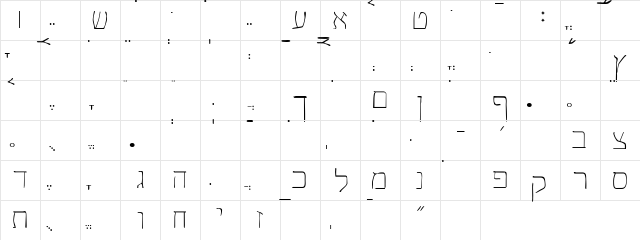
SPDamascus Regular
Design Context for SPDamascus Typeface
SPDamascus offers clean, dependable letterforms without strong stylistic allegiance, making it a practical choice for designers who need flexibility.
Pro Tip: Pair SPDamascus with a font of contrasting weight or personality to build a more expressive typographic hierarchy.